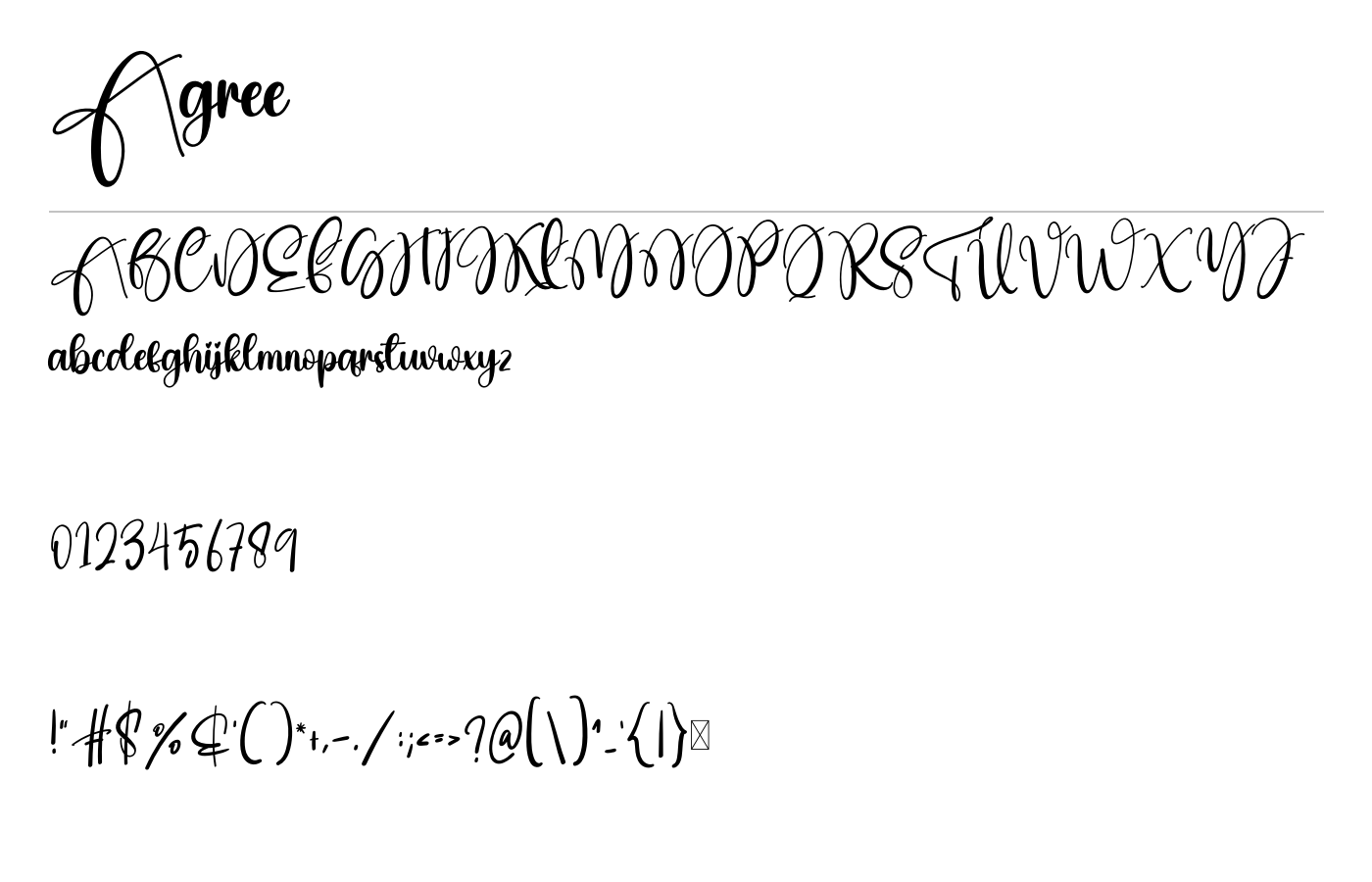
Agree Font is a lively and elegant script typeface with flowing, hand-drawn strokes and a playful charm. Its tall, slender letters with varying line thicknesses and flourishing capitals create a whimsical yet sophisticated feel, making it perfect for invitations, branding, and creative designs that seek a personal and stylish touch. This font combines artistic flair with readability, ideal for adding character to logos, social media posts, and decorative headlines.
Agree Font